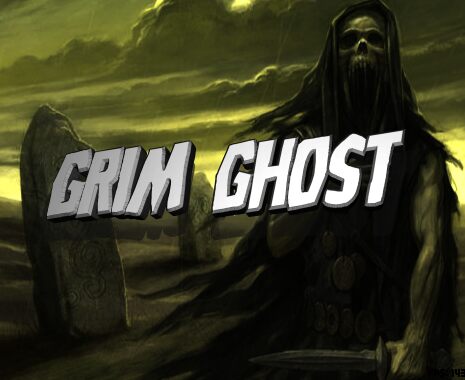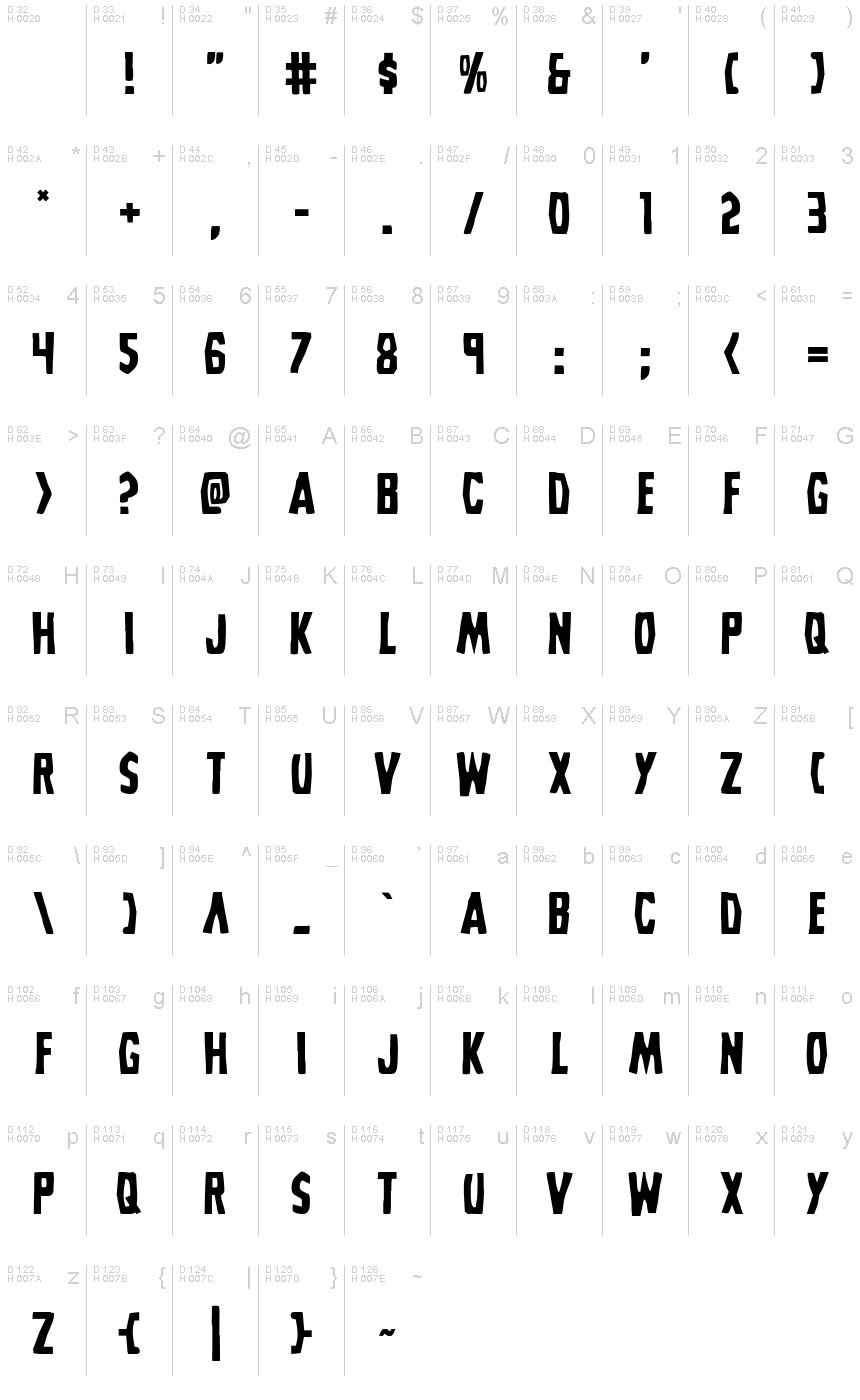
Grim Ghost font by Iconian Fonts is a display font with a unique scary and high-impact style. This condensed typeface is extremely blocky, featuring irregular contours with exaggerated serif-like elements. It features playful distortion and creativity that will be the center of attention in each of your projects.
Grim Ghost is an old-school, pulp horror font. It comes with a complete character set and includes the Euro symbol.